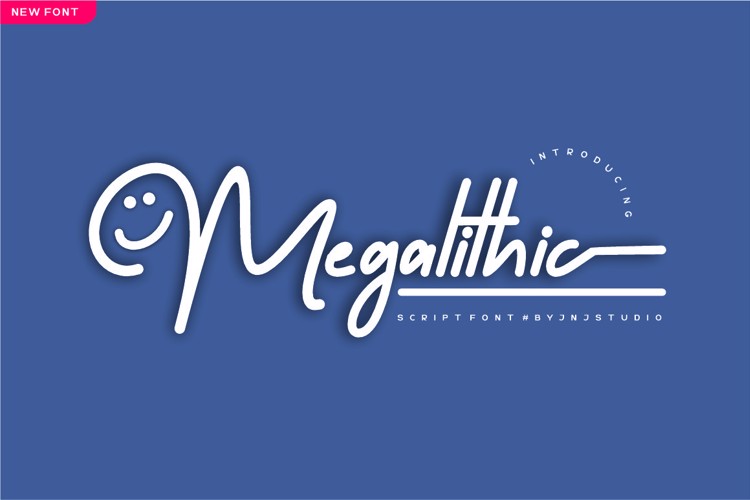
Megalithic Font
Megalithic is a bold script typeface that commands attention with confidence and character. Inspired by the strength and permanence of monumental forms, Megalithic blends powerful, thick strokes with smooth, flowing curves to create a dramatic yet elegant handwritten style.
Its bold weight delivers strong visual impact, making it perfect for headlines, branding, packaging, posters, and statement logos. Each letter is carefully crafted with dynamic swashes and expressive ligatures, giving the typeface a natural rhythm and cohesive flow. Megalithic is not just a script font; it’s a bold signature carved with confidence.
- Numeral and Punctuation
- Multilingual Support
- Final Lowercase
- Swash